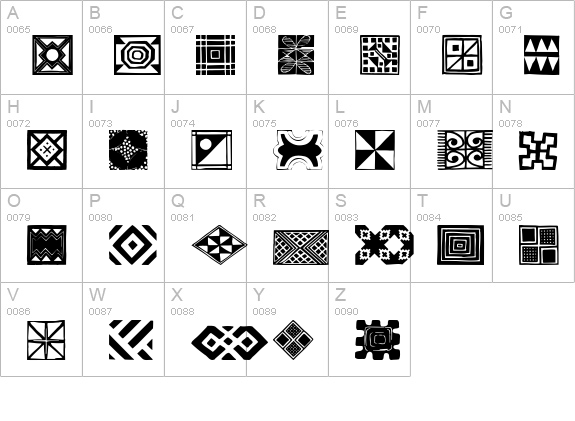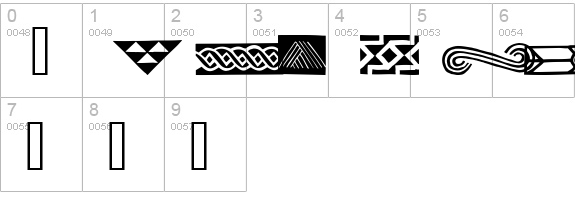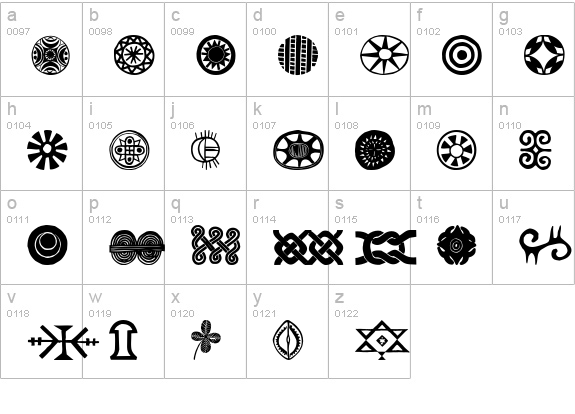
AfricanOrnamentsOne Font Details
AfricanOrnamentsOne font is a unique and intricate typeface inspired by traditional African art and patterns. Featuring ornate details and cultural motifs, this font exudes a sense of authenticity and richness. Its elegant curves and intricate designs make it a perfect choice for projects that require a touch of African heritage and style. The best part? AfricanOrnamentsOne font is available for free download at FontsMarket.com. Embrace the beauty and richness of African culture with this stunning font, and add a touch of tradition to your designs. Whether you're working on branding, invitations, or any other creative project, AfricanOrnamentsOne font is sure to make a statement. Download it now and let your creativity shine with this exquisite typeface.